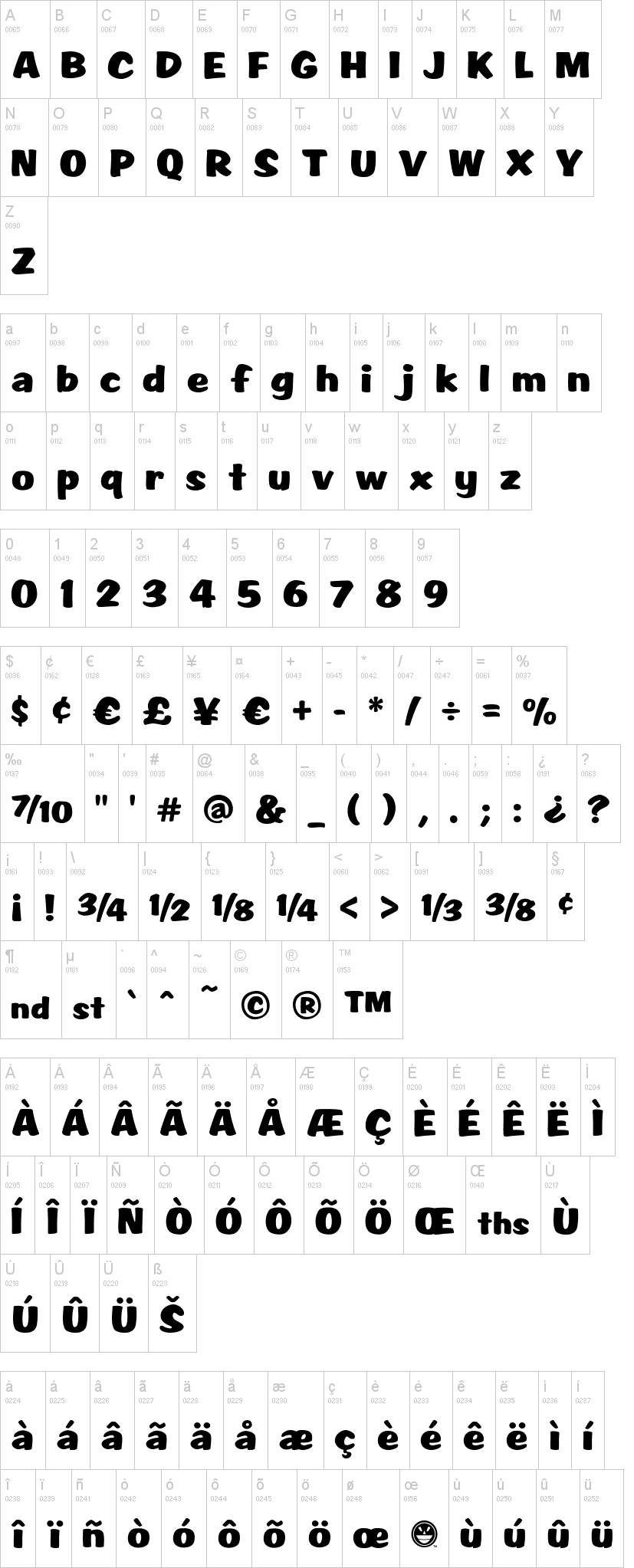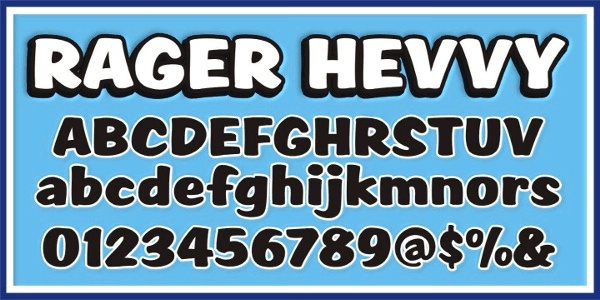
Шрифт Script1 Rager Hevvy
Arriving fresh out of the Fontry's wildly successful Script Pak #1, Rager Hevvy is a bolder, fatter spin on the casual fonts of old. But don't let the wide stance fool you. You can tuck this font into spaces you would never expect, from the scrunched to the vast and open. Plus you'll have fun doing it, because it's such a happy, cartoony face that really get its message out, spreading cheer to everyone who sees it! And it really enjoys big format moments, like banners and signs and truck lettering. But it also doesn't mind headlining a webpage or a team shirt or a flyer for your next family get-together. And all that "hevvy" raging insinuated by the name? That's you, raving on about how this simple face is all the rage when it comes to your every layout need.